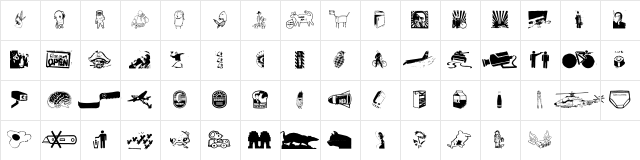
PlakkenWalls Regular
PlakkenWalls is a composed and adaptable typeface that performs quietly and consistently across a wide range of design contexts.